Saintine Font
Saintine is a stylish, elegant, and modern signature script font. It is perfect for various projects such as logos and branding, hand lettering, merchandise, advertisements, invitations, social media posts, etc. This font is PUA encoded, which means you can access all of the glyphs and swashes with ease!
Light Trail Font
A friendly bold serif font that brings the soft side of a cowboy. Suited perfectly for western themes books market, online games, stationary, badge style logo font, poster, birthday invitation, youtube covers, youtube thumbnails, social media page covers, and so on.
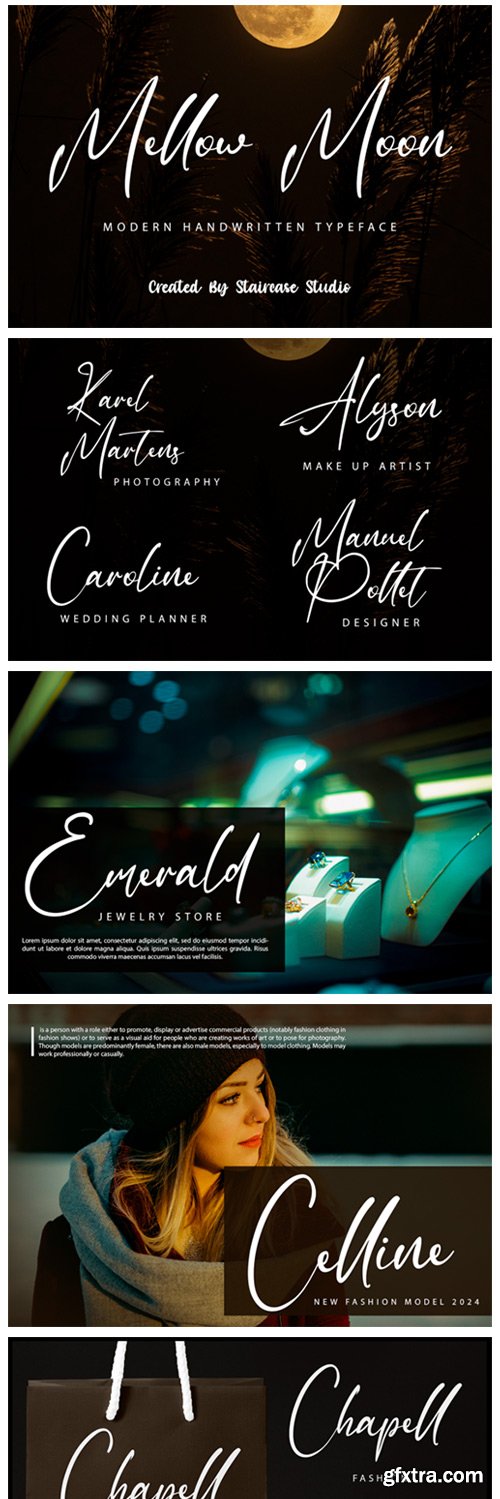
Mellow Moon Font
Mellow Moon is a modern script font. A collection of letters and numbers suitable for your projects is also great for logotypes, branding designs, logos, digital lettering arts, t-shirt/apparel, posters, magazines, signs, advertising designs, and so much more.
Rantera Font
Rantera is a stylish and modern sans serif font. The soft curves mixed with high contrast glyphs give this font feminine and masculine qualities. Equipped with epic ligatures, this font is great in layout designs for quotes or body copy, and it will make a unique logo design.
Achilleas Font
Achilleas is a unique handwritten font with sophisticated characters, stylish swashes, and gorgeous alternates. This is perfect for invitation calligraphy, luxury branding, fashion promotions, song titles, and many more projects. This font is crafted carefully in every single scratch, created to look as close to natural handwriting as possible so that it can create the perfect combination on each glyph. This awesome script is for anyone who needs a touch of elegance and style for their designs. Achilleas is perfect for weddings, engagements, branding, invitations, florist, hair stylish, makeup artist, event organizers, movies, music, festivals, promotions, social media, etc.
Referee Font
Referee Font comes with two style options: Regular and Outlined. Referee Font will be great for any projects, including branding, logo, stationery, business card, signage, flyer, or brochure. It will be great for many business industries: games, sport, restaurants, café, music, automotive, and movie.
Tenuity Font
Tenuity is a wonderful display font, perfect for your creative projects that need outstanding typography. Use it for watermarks, logos, branding, invitations, advertisements, labels, product packaging, special events, or anything that needs to stand out! This font is PUA encoded, which means you can access all the glyphs and swashes with ease!
Sabtu Minggu is a delicate, elegant and flowing handwritten font. It has beautiful and well balanced characters and as a result, it matches a wide pool of designs. Add it to your most creative ideas and notice how it makes them come alive!
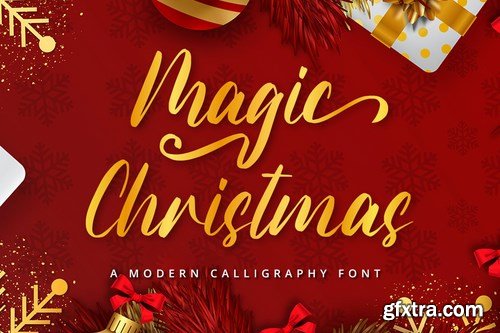
Magic Christmas is a beautiful, rich, and elegant handwritten font. It is ideal for holiday-themed greeting cards and for any crafting project that requires a warm touch. This font is PUA encoded which means you can access all of the glyphs and swashes with ease!
Sang Bintang is a delicate, elegant and flowing handwritten font. It has beautiful and well balanced characters and as a result, it matches a wide pool of designs. Add it to your most creative ideas and notice how it makes them come alive!
Tanya Hati is a delicate, elegant and flowing handwritten font. It has beautiful and well balanced characters and as a result, it matches a wide pool of designs. Add it to your most creative ideas and notice how it makes them come alive!
Famous Brush is a textured handbrush font. Get inspired by its unique and beautiful style and add it to your favorite designs!
Little Ribbon is a beautiful handwritten typeface with bold shapes combining simple lines. This letter is suitable if you want to show a cheerful impression or playful design with solid color. This typeface is perfect for an kids stuff like ads, poster, flyer, or email blast. And also good for packaging product, food & beverages, quotes, or simply as a stylish text overlay to any background image.
Baschone is a classic vintage serif font. Display uppercase only. Very suitable for inclusion in vintage and retro themes.
Introducing Cherevox! a beautiful retro font with multilingual, alternate and ligature from drizy! Perfect for gorgeous logo name, titles etc, Cherevox will pair beautifully with many fonts and work well with whatever project you're working on.
Hello, this time we want to introduce a new product. namely "Astrella Typeface", a Serif display font that has a classic, feminine and elegant style.
Here comes a New font, Absorbia is a Unique Display Brush Font casually and quickly. Letters are made with brushes on Procreate. Then crafted carefully drawn into vector format. That is why Absorbia has charming, authentic and relaxed characteristic more natural look to your text with a more natural look to your text. You can activate Ligature OpenType panel to make these two styles. It also has many alternatives and underlines that make your text and design more interesting. Absorbia is perfect for homeware designs,branding projects, Logo design, Quotes product packaging
Frogly Font
Frogly is a unique and stylish serif font suitable for various projects ranging from logos, invitations, branding, apparel designs, or other ideas that need luxurious typography.